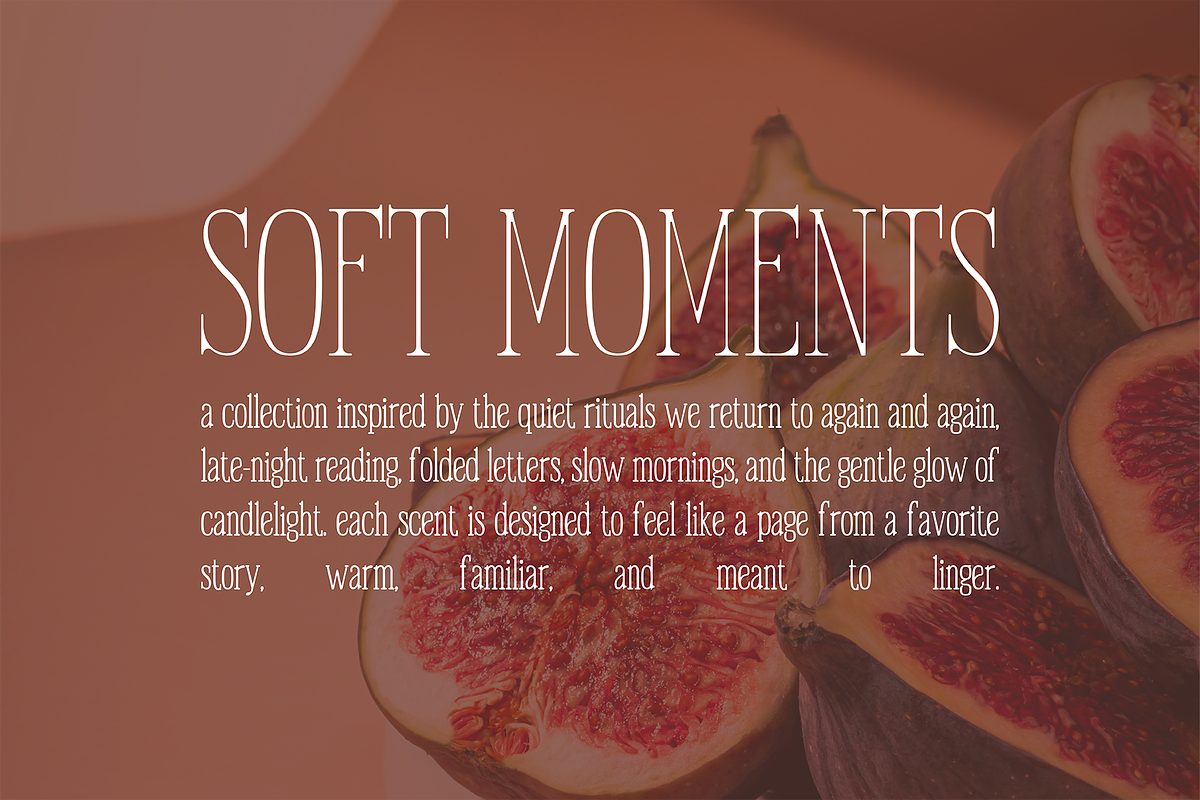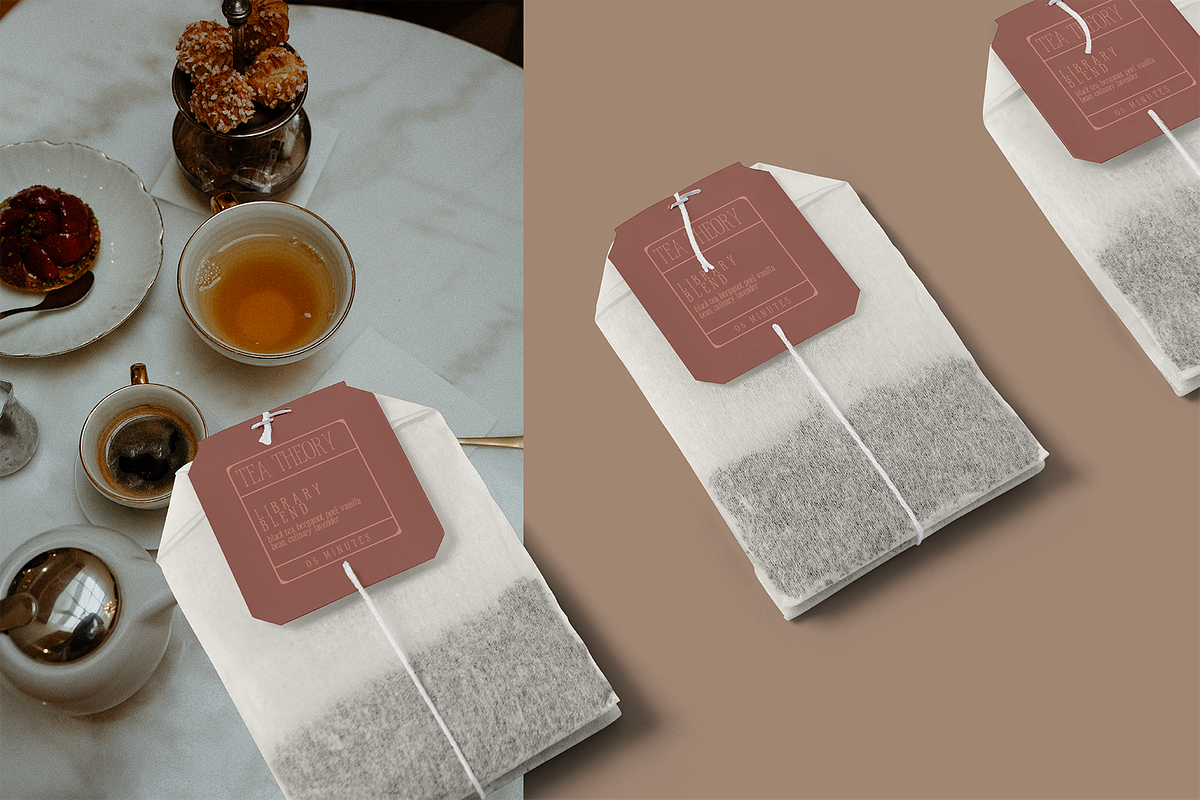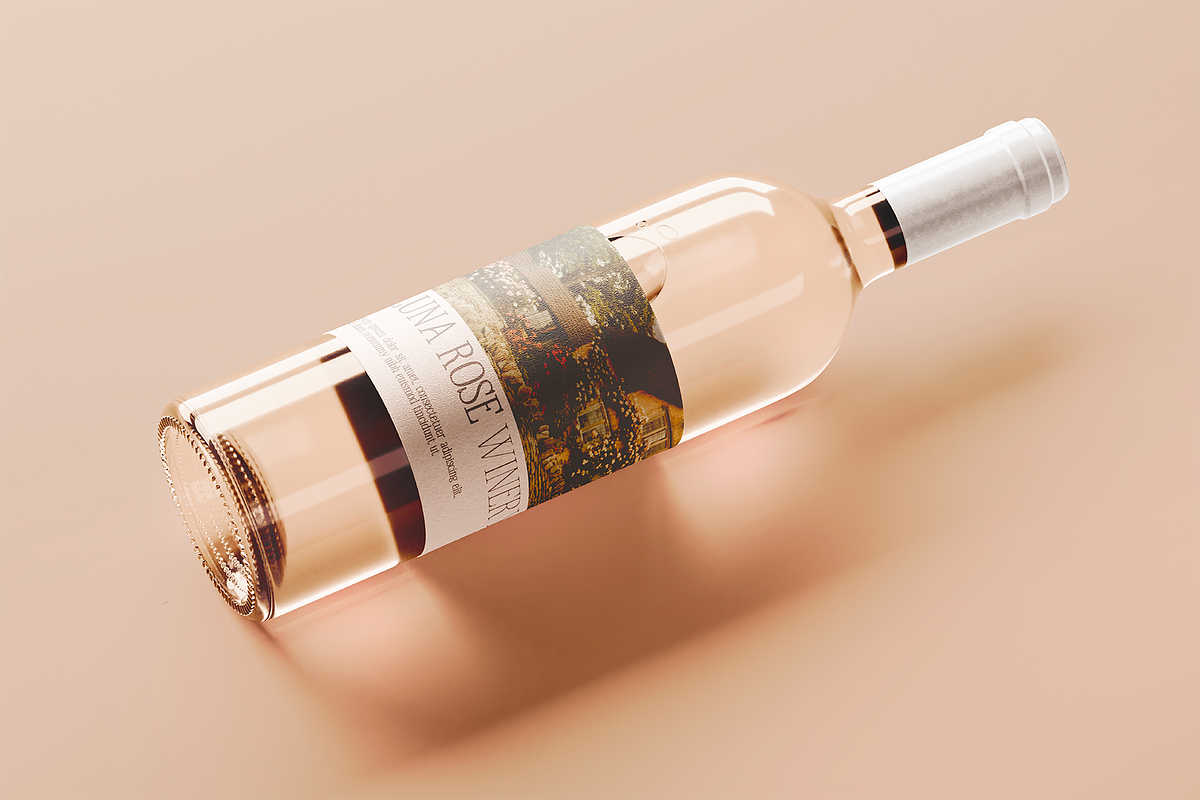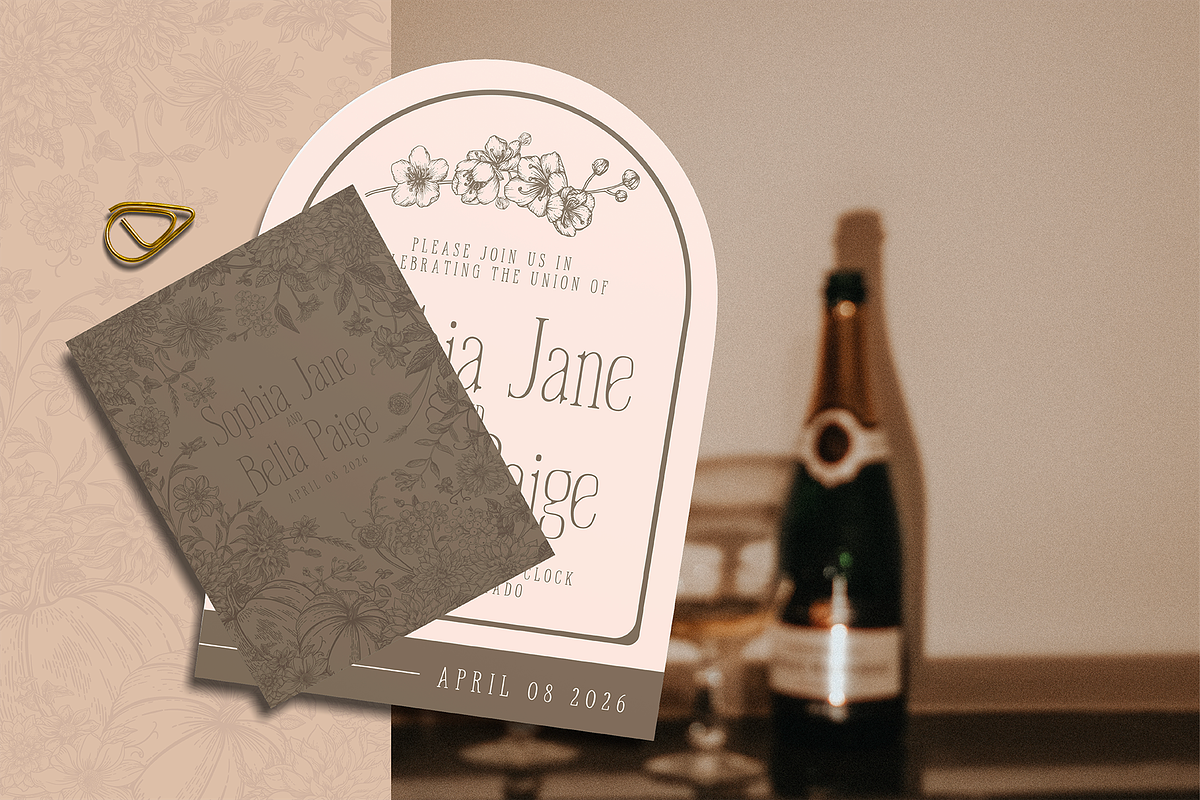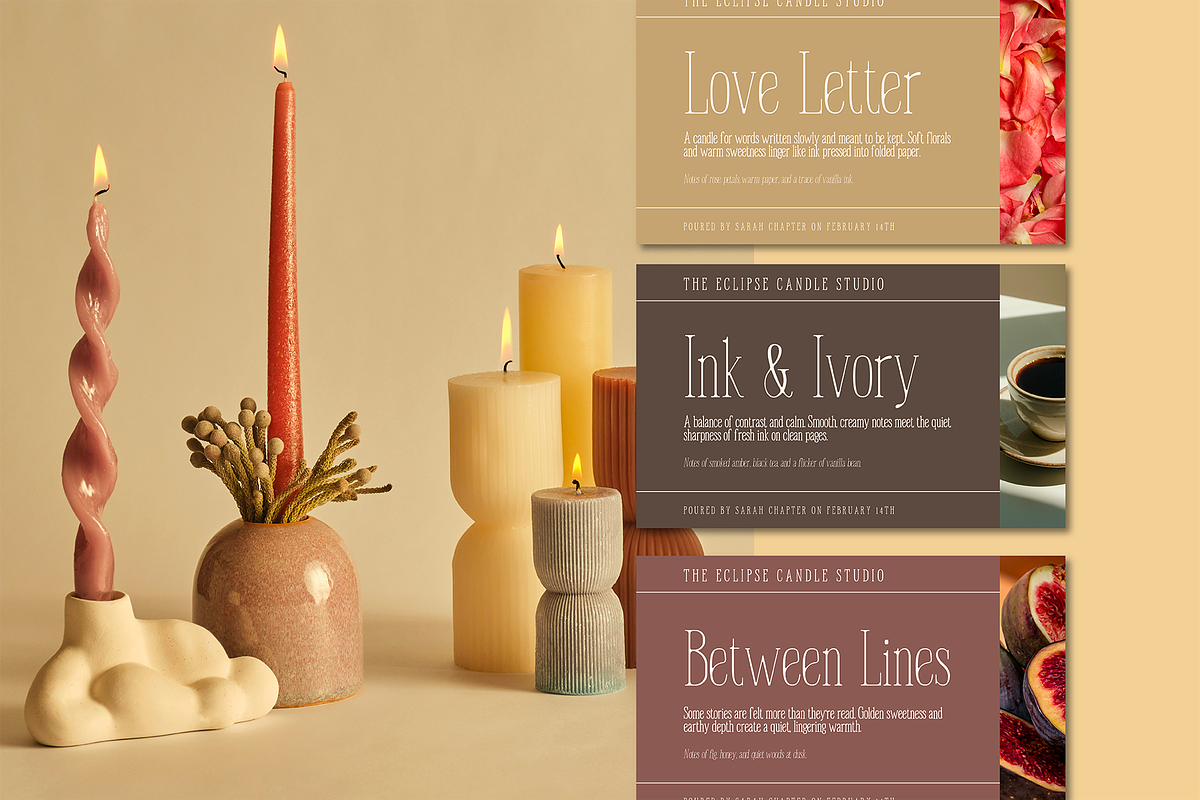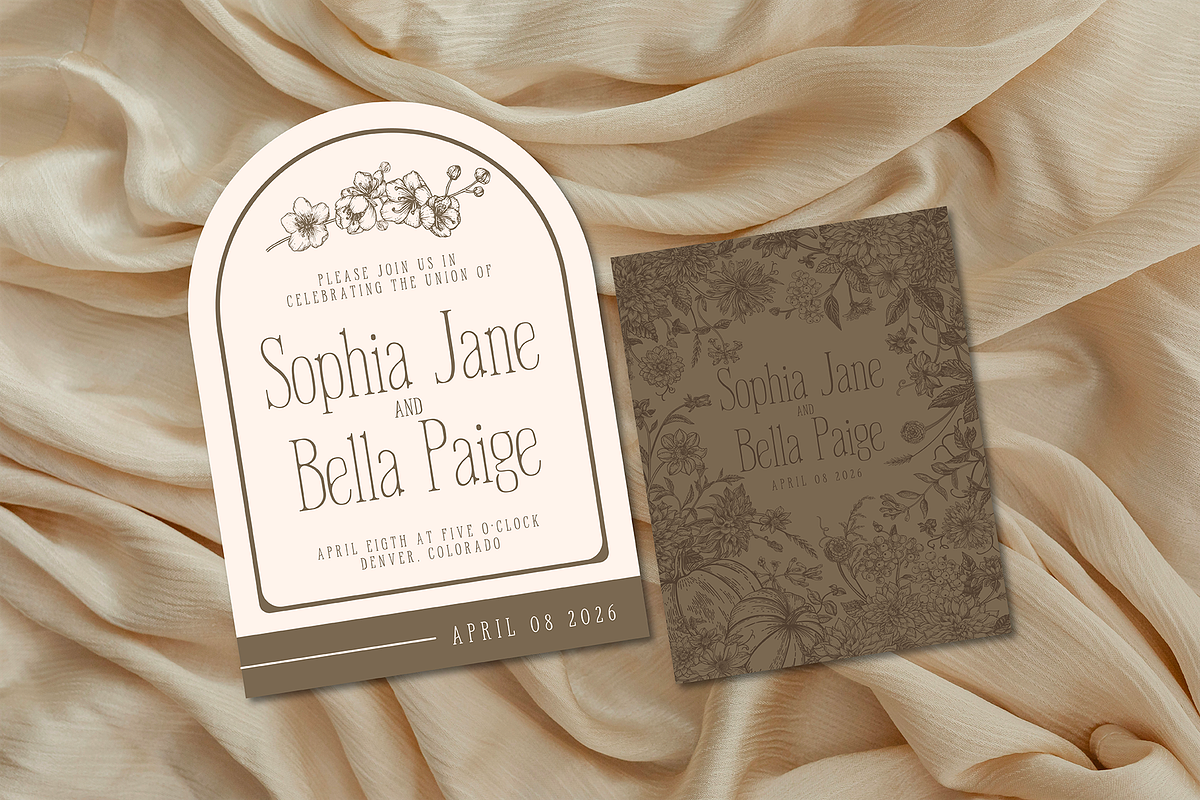
Chapter House · Handwritten Serif
Say Hello To Chapter House
Chapter House is a hand-drawn serif font inspired by love letters, dog-eared novels, and the quiet romance of getting lost in a good book. With soft curves, subtle imperfections, and thoughtfully organic details, each letter feels personal, like it was written slowly by hand rather than typed on a screen.
This expressive typeface includes four versatile variations - Light, Light Italic, Heavy, and Heavy Italic - designed to layer beautifully together and give you flexibility across headlines, body copy, and emphasis. The contrasting weights make it easy to create elegant hierarchy while maintaining a cohesive, story-driven look.
Chapter House was created to bring warmth and intimacy to your creative work, making it perfect for branding, book covers, candle labels, packaging, stationery, social media graphics, and any design that calls for a softer, more heartfelt touch. Whether you’re crafting a romantic logo or building a full visual identity, this font adds timeless character with ease.
Every letterform has been carefully drawn to balance charm with usability, ensuring clarity, legibility, and smooth performance across both print and digital applications. Designed with fellow creatives in mind, Chapter House is easy to install, simple to use, and fully compatible with your favorite design programs.